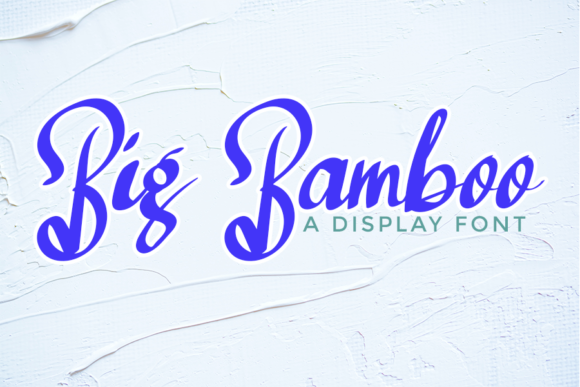
**Dive into the World of Big Bamboo: Where Script and Sophistication Collide**
Prepare to be captivated by the enchanting script of Big Bamboo, a font that exudes both timeless elegance and a touch of playful allure. Each stroke is a masterpiece, infused with a unique flair that will transform your designs into breathtaking works of art. Whether you're crafting eye-catching logos, establishing a distinctive brand identity, or simply expressing yourself through captivating quotes, Big Bamboo will elevate your creations to new heights.
Journey into the realm of Big Bamboo and discover a symphony of flowing curves, delicate flourishes, and enchanting swirls. Every letter is a testament to the artistry of its creator, merge354, who poured their heart and soul into every stroke. With Big Bamboo, you'll have the power to make your words dance across the page, capturing attention and leaving an unforgettable impression.
Embrace the allure of Big Bamboo and watch as your designs blossom into masterpieces. Its versatility knows no bounds, allowing you to explore a myriad of creative possibilities. Whether you're creating stunning social media graphics, designing enchanting wedding invitations, or crafting sophisticated marketing materials, Big Bamboo will effortlessly enhance your vision.
Unleash your creativity and let Big Bamboo guide you through a world of endless possibilities. Its timeless script will add a touch of elegance to any project, while its playful undertones will inject a dash of whimsy. Every letter is a stroke of genius, waiting to be transformed into something truly extraordinary.